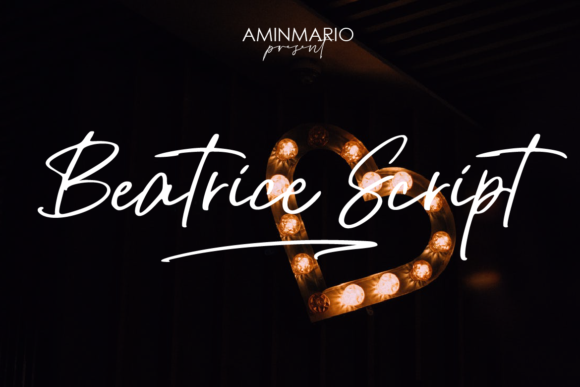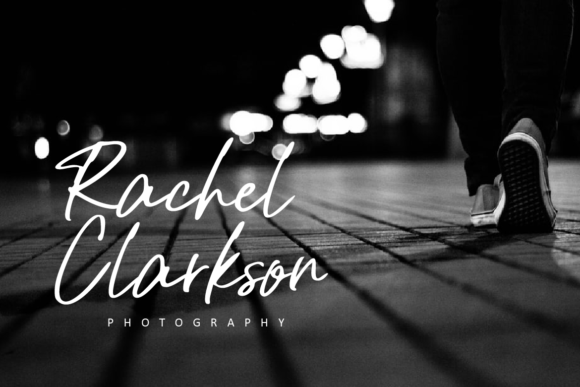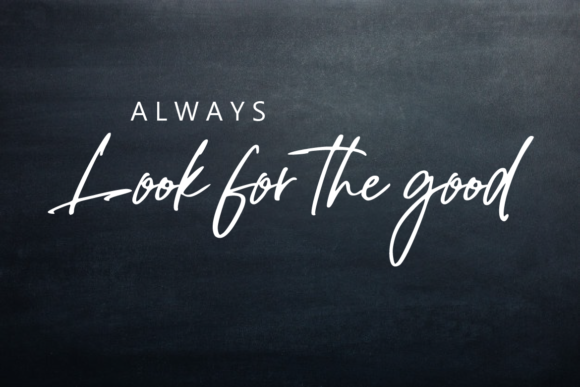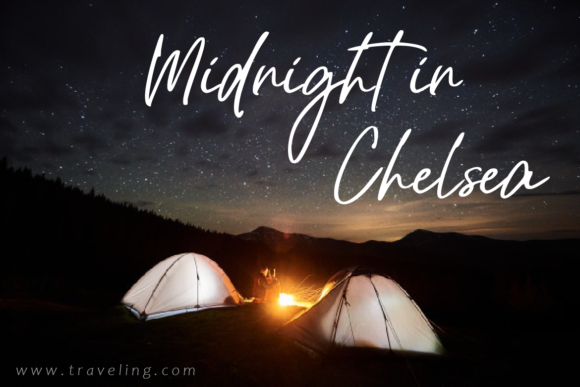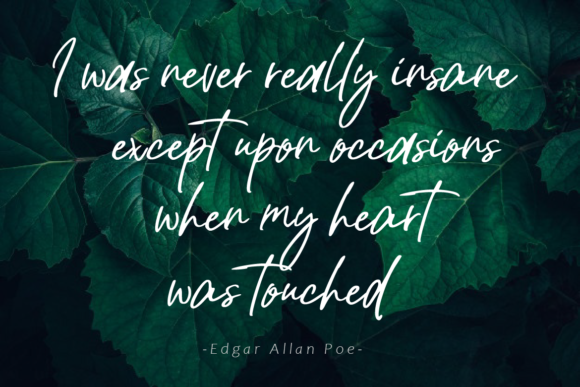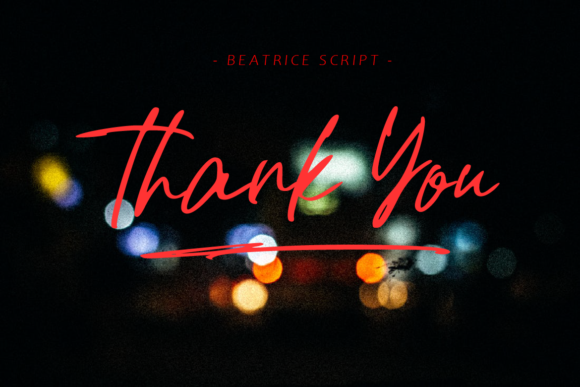
Beatrice Script Font
About Beatrice Script Font
Beatrice Script is a modern script, full of personality and curves. This font was designed to give a natural handwritten look in a digital world. It is perfect for any project that needs a personal taste.